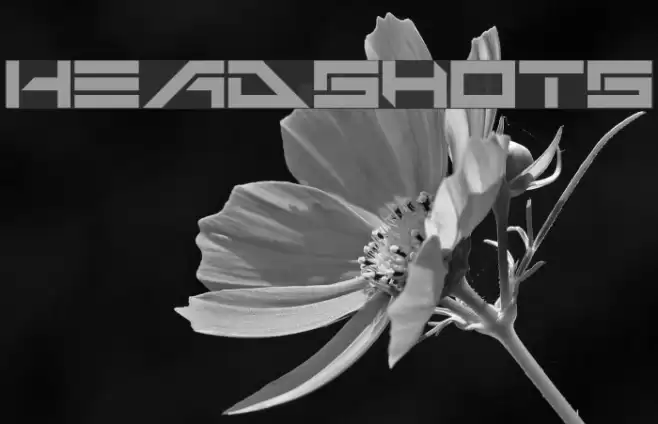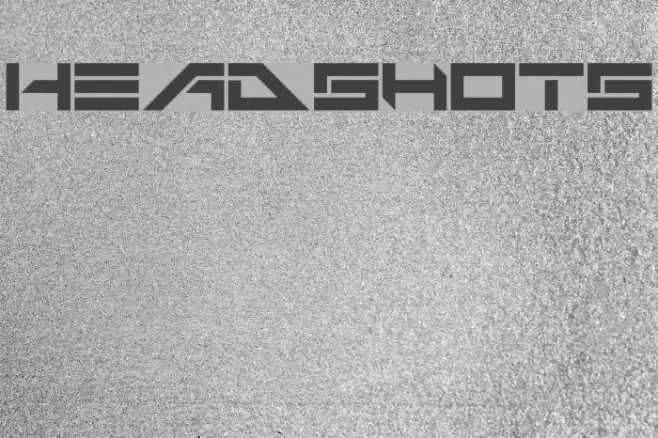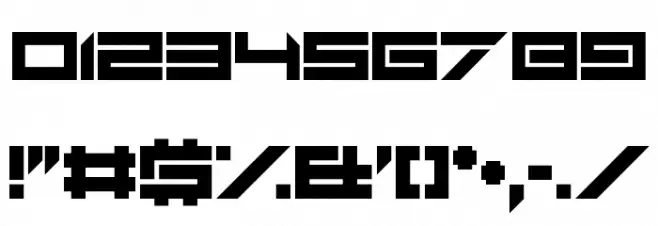
Headshots Font
Headshots Description
This font features a bold, futuristic design with sharp angles and geometric shapes. The characters are constructed with a combination of straight lines and acute angles, giving it a distinctly modern and edgy appearance. The uppercase and lowercase letters share a similar style, maintaining consistency throughout the typeface. Numbers and special characters are designed to match the angular theme, making the font suitable for projects that require a strong, impactful visual presence. The overall look is reminiscent of digital or sci-fi aesthetics, making it ideal for technology-related designs.
A bold, angular, and futuristic font with a strong digital aesthetic from Uncategorized fonts.
- Proposed Projects: Ideal for technology branding, sci-fi movie posters, video game titles, and digital art projects.